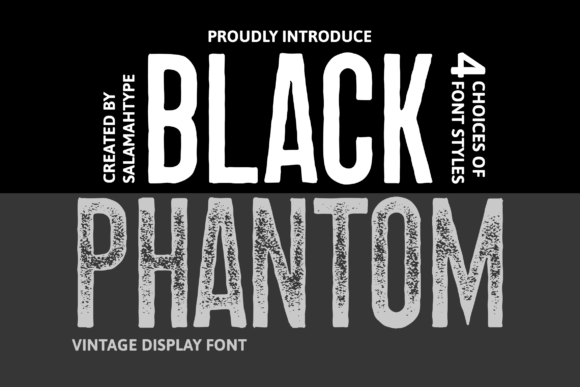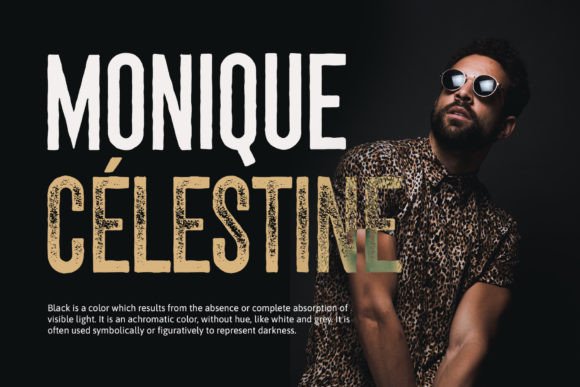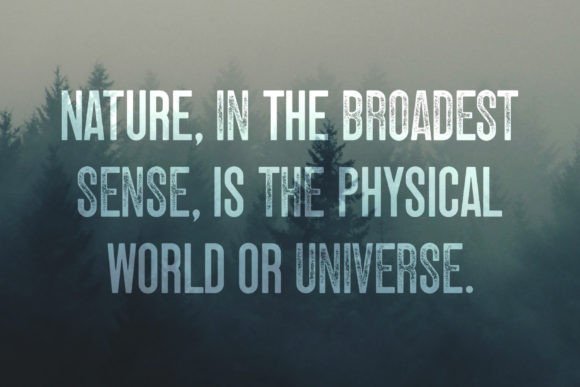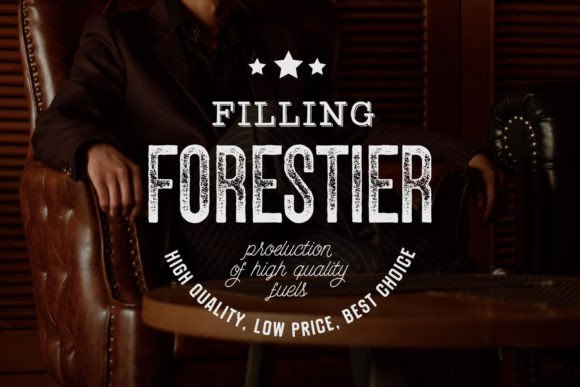
Black Phantom Font
About the Black Phantom Font
Explore the possibilities with Black Phantom Font, a font that offers both beauty and functionality. “BLACK PHANTOM” – display sans font with 4 styles included (Clean and Stamp/Textured). Perfect for branding projects, logos, labels, and more. Textures like rust core, will make your design, product, logo, or label more cool, unique, and meaningful.
Black Phantom’s bold, slightly aggressive personality makes it ideal for headlines, short impactful statements, and branding projects targeting a younger, more rebellious demographic. It excels in logo design, packaging for edgy products, and posters requiring a strong visual presence. However, its textured styles, while visually interesting, are less suitable for body text or UI elements where readability is paramount. Avoid using it for long paragraphs or applications requiring high legibility.
Consider pairing Black Phantom with a clean sans-serif like Open Sans for improved readability in supporting text or a classic serif like Garamond for a sophisticated contrast. For a more modern, edgy feel, pairing it with a geometric sans-serif such as Futura would amplify its bold character. The “Clean” style works well with a variety of pairings, offering greater flexibility than the “Stamp/Textured” option.
Black Phantom Font Usage Examples
Black Phantom Font Example